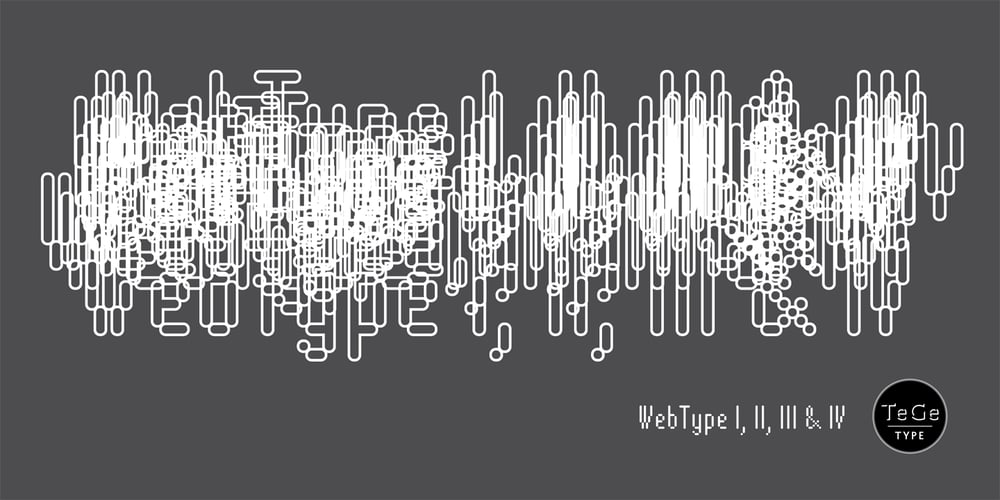
WebType
WebType font
WebType Font Family was designed by Thierry Gouttenègre and published by TeGeType. WebType contains 7 styles and family package options. The WebType family was designed to be used on screen with web design applications.